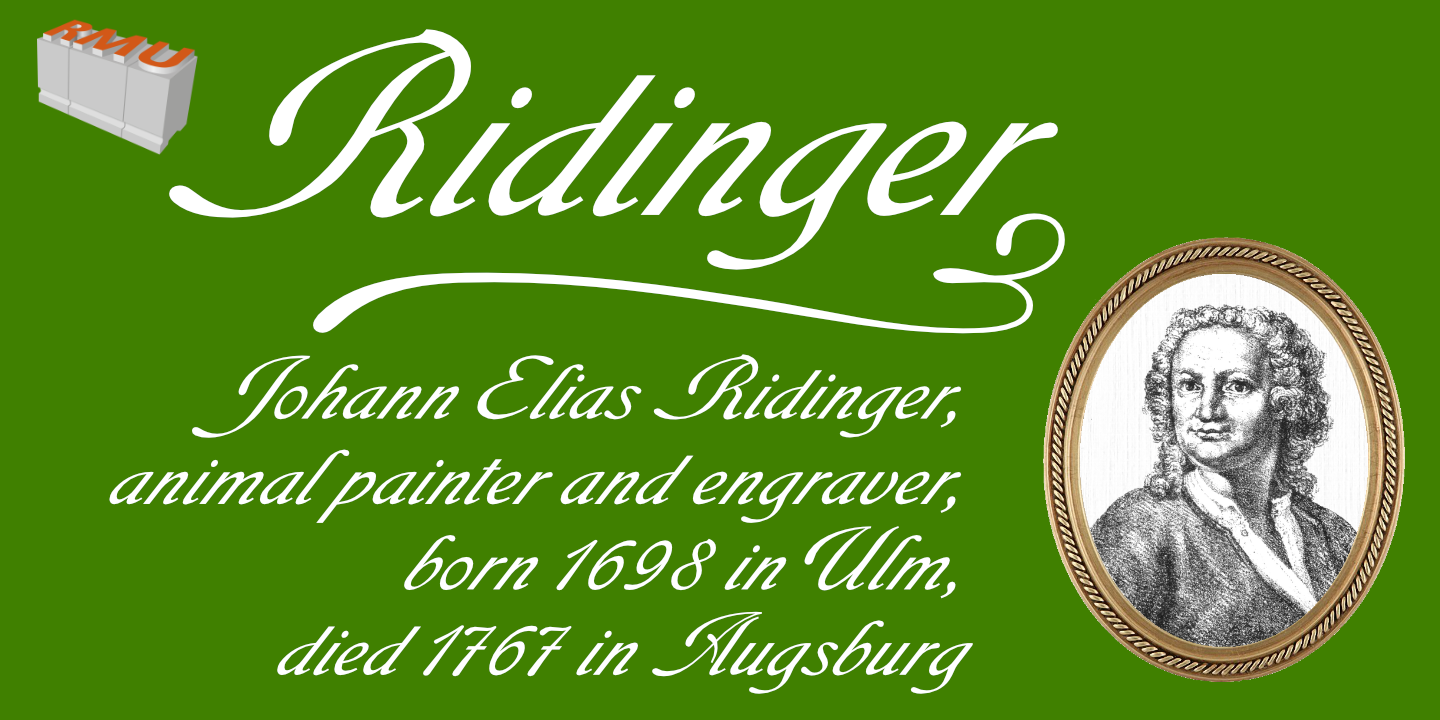
Ridinger Font demonstrates exceptional versatility across prestigious design applications including heritage brand identities, classic academic institutions, traditional law firm communications, established banking signage, vintage wine estate labeling, historical society publications, aristocratic family crests, distinguished club materials, legacy business correspondence, and timeless cultural event graphics. This distinguished typeface seamlessly combines European nobility with enduring sophistication, making it an invaluable resource for designers working on projects that require historical gravitas, established authority, and the refined elegance of centuries-old traditions.
What makes Ridinger Font particularly exciting is its masterful interpretation of classical European typography that captures the essence of old-world craftsmanship and aristocratic refinement through meticulously crafted letterforms that seem to carry the weight of history and the dignity of noble heritage. The font features elegant, proportioned characters with subtle serif details and commanding presence that evoke the artistic traditions of European courts, scholarly institutions, and master craftsmen. Its sophisticated design incorporates traditional typographic principles with contemporary functionality, creating perfect harmony between historical authenticity and modern usability. The typeface's ability to convey both authority and refinement makes it perfect for organizations seeking to establish connections with European heritage while maintaining the credibility essential for distinguished professional communication. Each character has been carefully crafted to reflect centuries of typographic excellence while ensuring optimal performance across contemporary applications and international markets.
The Ridinger Font family encompasses distinguished variations including Light, Regular, Medium, Bold, and Black weights, each maintaining the core aristocratic aesthetic while offering distinct levels of authoritative presence and classical elegance. The family also features condensed versions for space-efficient heritage applications and extended variants for grand institutional headline treatments. Special heritage cuts may include ornamental capitals inspired by historical manuscripts, flourished alternates reflecting noble traditions, and classical ligatures that enhance the font's distinguished character for authentic heritage branding applications.
Heritage professionals consistently choose Ridinger Font Free Download for projects requiring authentic European elegance and established institutional appeal. This remarkable typeface has gained recognition in the prestigious market for its ability to communicate heritage, authority, and refined taste through thoughtful typographic design inspired by centuries of European craftsmanship traditions. The font's comprehensive OpenType features include stylistic alternates, classical ligatures, and ornamental elements that support sophisticated heritage branding and authentic institutional communication.
Whether you're developing established institutional identities, creating heritage brand materials, designing classical publications, or crafting distinguished professional communications, Ridinger Font delivers exceptional results. Its aristocratic aesthetic makes it particularly suitable for law firms, financial institutions, academic organizations, heritage brands, and distinguished establishments seeking to communicate authority, tradition, and the timeless elegance of European cultural refinement through their visual identity.
The font's technical specifications ensure flawless performance across all heritage applications while preserving its classical European character. It includes comprehensive Unicode support for international heritage markets, making it suitable for global institutional brands and multilingual classical projects. The careful optimization guarantees elegant rendering across various prestigious media, maintaining the font's distinguished qualities whether displayed on institutional signage or reproduced in high-quality heritage materials.
Professional designers appreciate Ridinger Font's ability to convey European heritage and institutional authority while maintaining commercial effectiveness and brand distinction. Its noble presence creates immediate associations with quality and established tradition while remaining highly functional for comprehensive heritage branding systems. The font's classical design helps organizations establish credibility in prestigious markets while connecting with audiences who appreciate European craftsmanship, institutional excellence, and the enduring power of distinguished traditions that have shaped centuries of cultural and professional achievement.